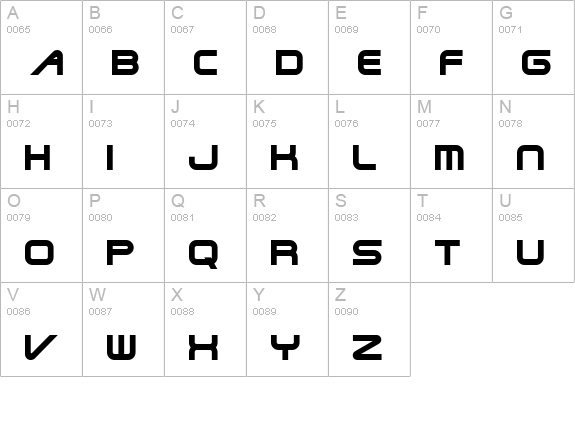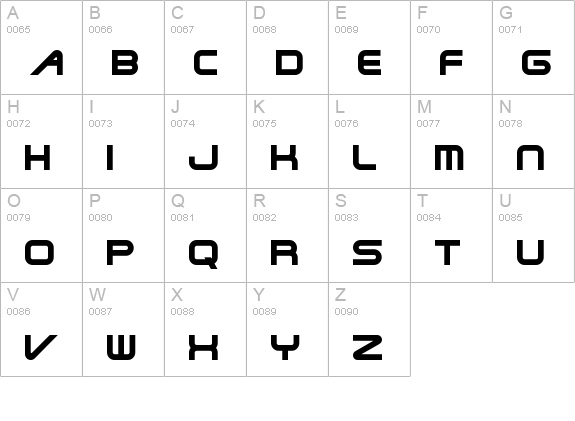
Shuttle Normal Font Details
Shuttle Normal is the standard, neutral variant in the Shuttle typeface family \xE2\x80\x94 well suited to general body text, paragraphs, and standard typographic work.
Shuttle Normal is a sleek and modern font that effortlessly blends contemporary design with timeless elegance. Its clean lines and balanced proportions make it a versatile choice for a wide range of design projects, from branding and packaging to editorial and web design. This font exudes a sense of professionalism and sophistication, making it perfect for creating impactful headlines, logos, and signage. Its bold and confident character adds a touch of personality to any design, while still maintaining a sense of professionalism. One of the standout features of Shuttle Normal is its readability. The clarity of its letterforms ensures that your message is easily conveyed to your audience, whether it's in print or on screen. Its well-crafted curves and sharp angles make each letter distinct and easily recognizable, resulting in a smooth reading experience. What sets Shuttle Normal apart is its accessibility. It is freely available to download at FontsMarket.com, making it a valuable resource for designers and creatives who are looking for high-quality fonts without breaking the bank. Its availability means that you can easily incorporate this font into your projects without any additional cost, making it a practical choice for both personal and commercial use. Overall, Shuttle Normal is a versatile and stylish font that offers both style and functionality. Its clean and modern design, combined with its ease of access, makes it a go-to choice for designers who are looking to make a bold statement with their typography. Download Shuttle Normal for free at FontsMarket.com and elevate your designs to new heights.